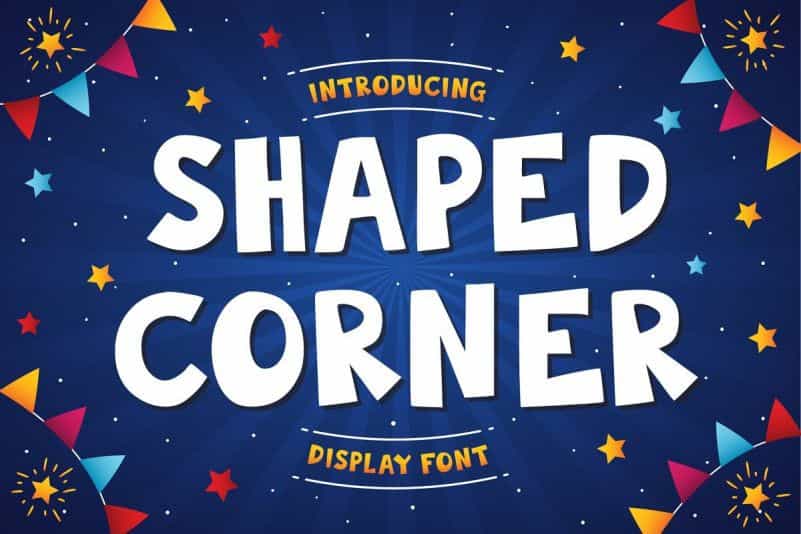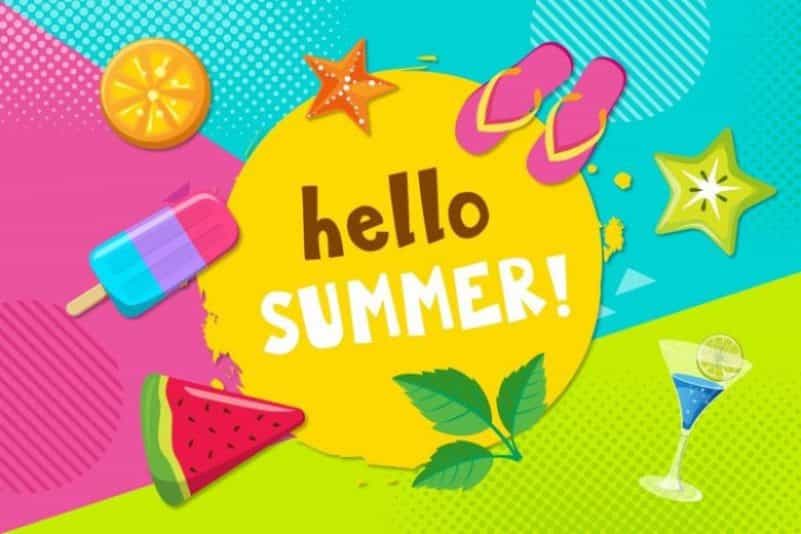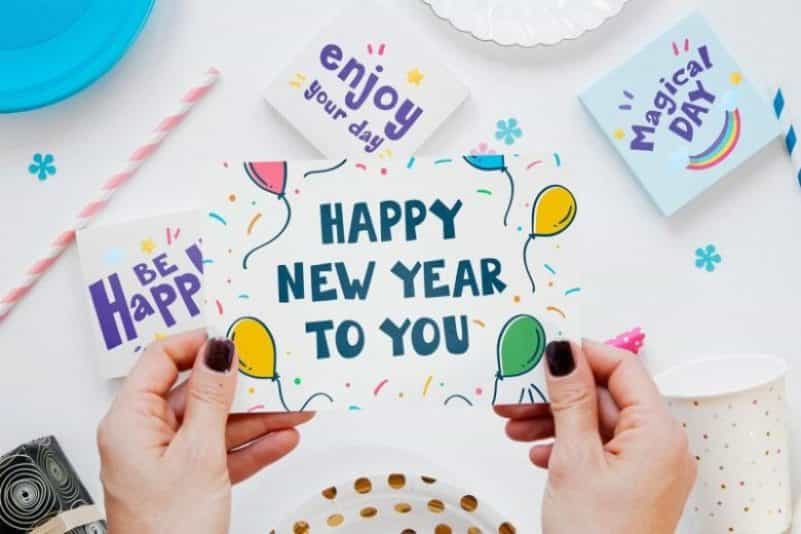
Introducing Shaped Corner Font. It is recommended for use in children’s theme designs. Especially suitable for children’s storybook lettering, branding, logo design, wedding, social media, advertisement, product, label, photo, watermark, invitation, stationery and more other handwriting style projects.